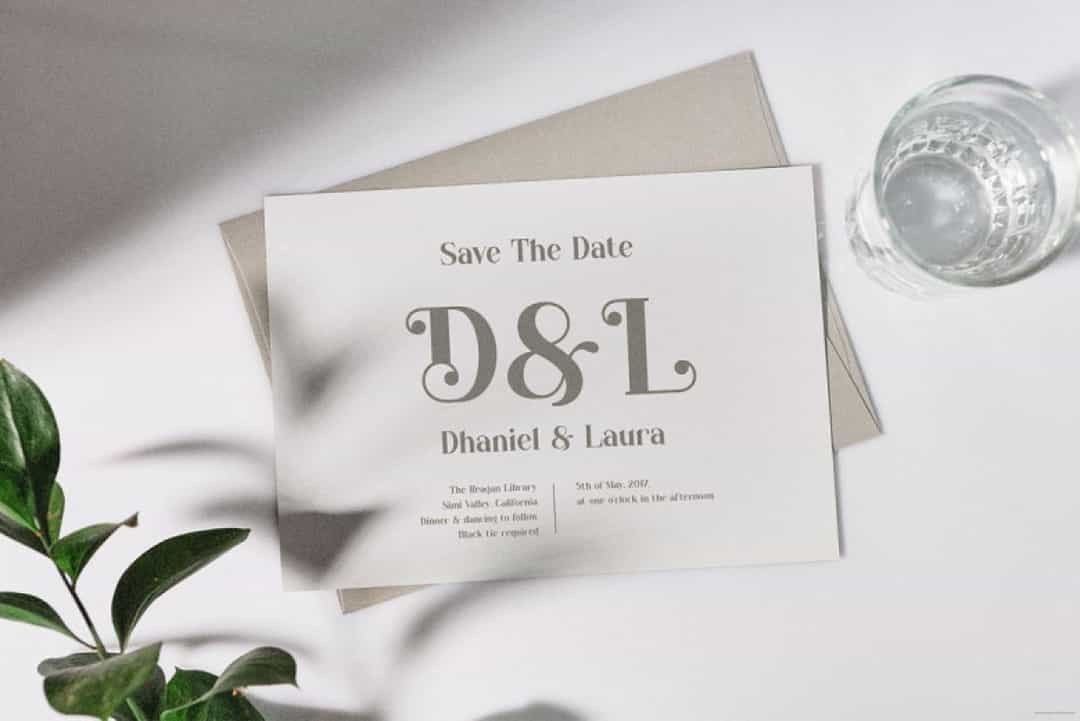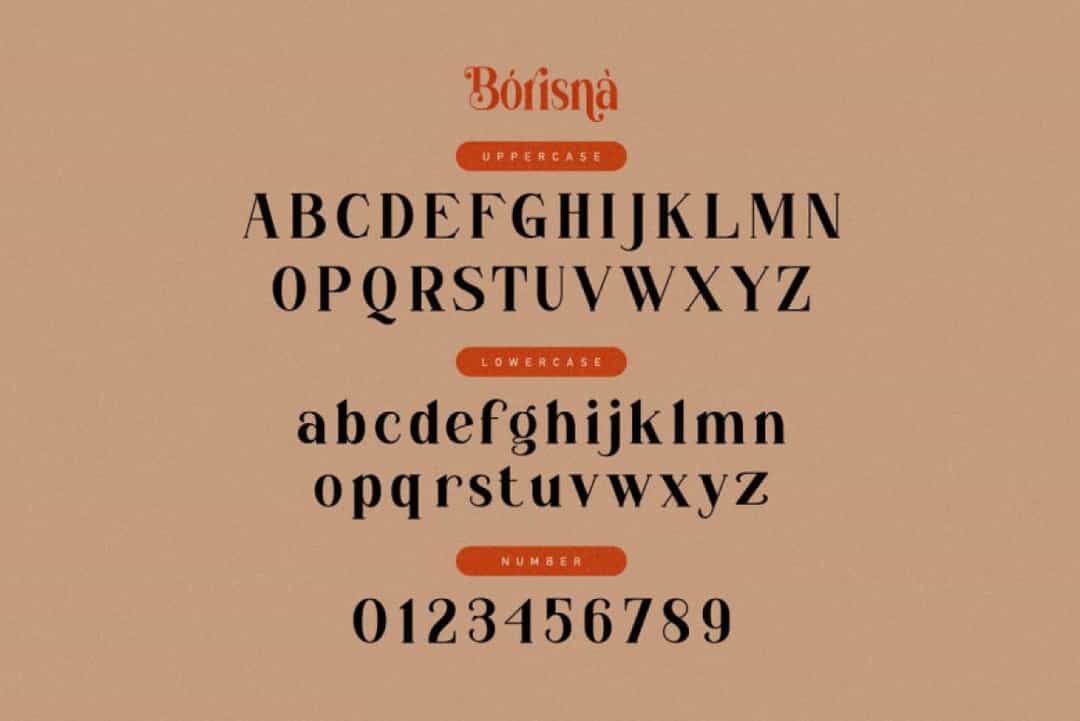
Discover Borisna Font, part of the Serif Display collection—a versatile and unique font perfect for adding a personal touch to your projects. Download it for free and enjoy crafting designs with style, from invitations to social media posts. This font is available exclusively for personal use, giving you the freedom to create without limits. Unlock your creativity with Borisna Font today!
Borisna – I believe the 80’s and 90’s to be timeless decades that are now experiencing renewed relevance, so we decided to create a piece of writing which pays homage to that period while simultaneously having a contemporary retro flair. Borisna can be defined as one of several writing styles we believe to be stylish yet classy with designs having contemporary retro features.